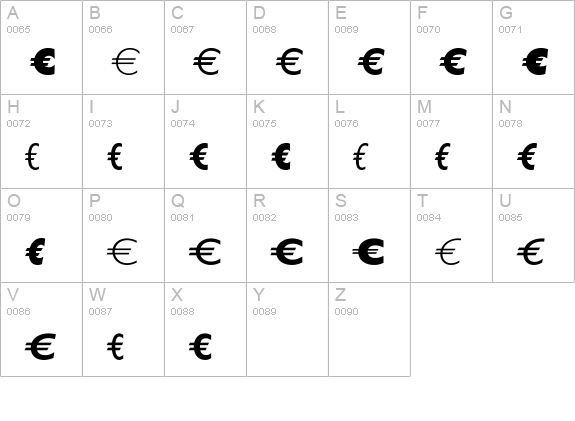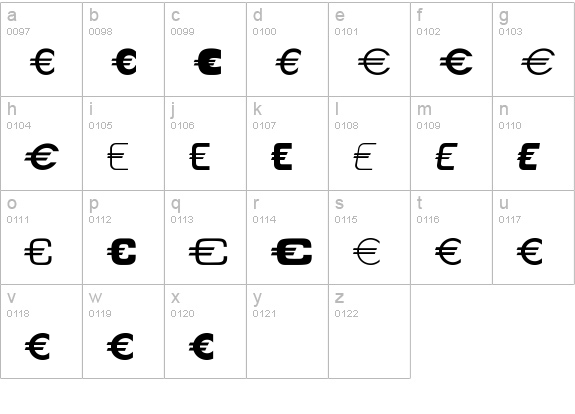
EuroSansEF-Three is a sleek and modern font with clean lines and a contemporary feel. This versatile typeface is perfect for a wide range of design projects, from branding to editorial layouts. With its well-balanced proportions and elegant letterforms, EuroSansEF-Three exudes a sense of sophistication and professionalism. Best of all, this stunning font is available for free download at FontsMarket.com. Whether you're a designer looking to add a fresh touch to your work or a business owner seeking a stylish font for your branding materials, EuroSansEF-Three is sure to impress. Don't miss out on this fantastic opportunity to enhance your projects with this high-quality typeface, completely free of charge. Download EuroSansEF-Three today and elevate your designs to the next level!